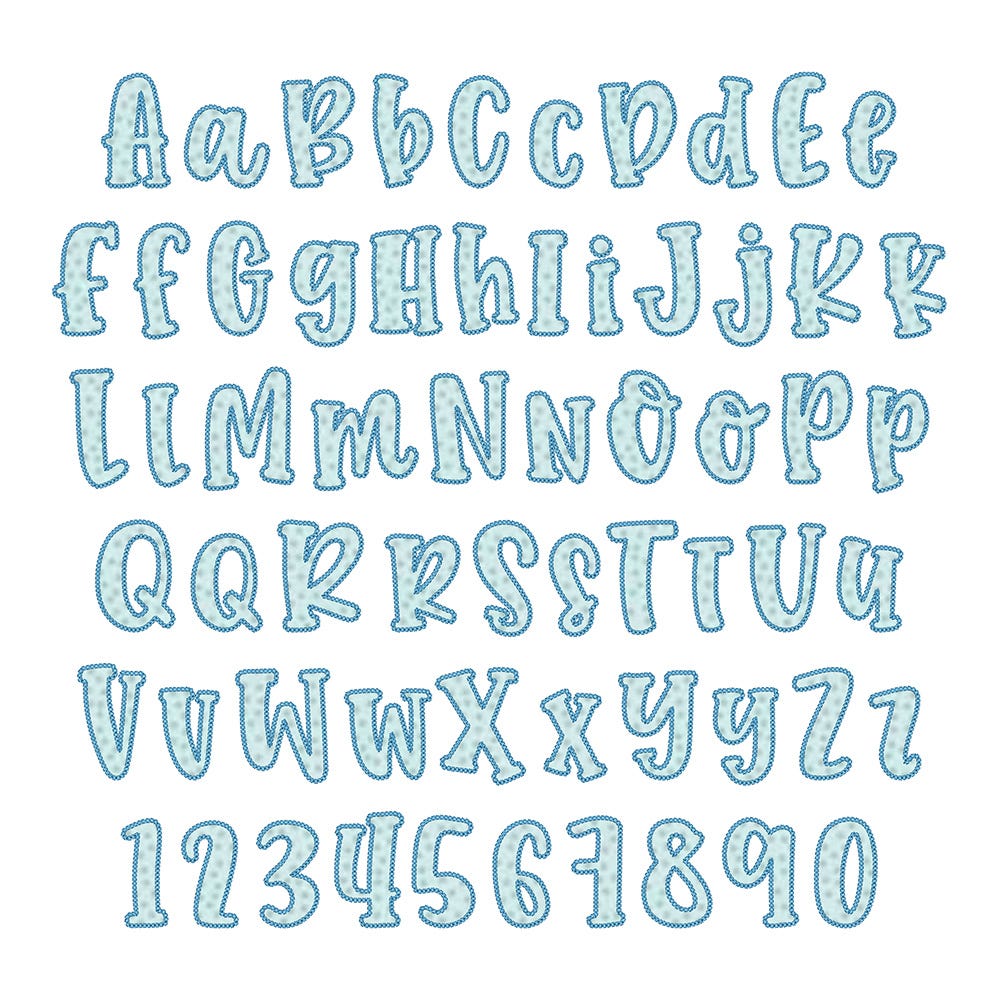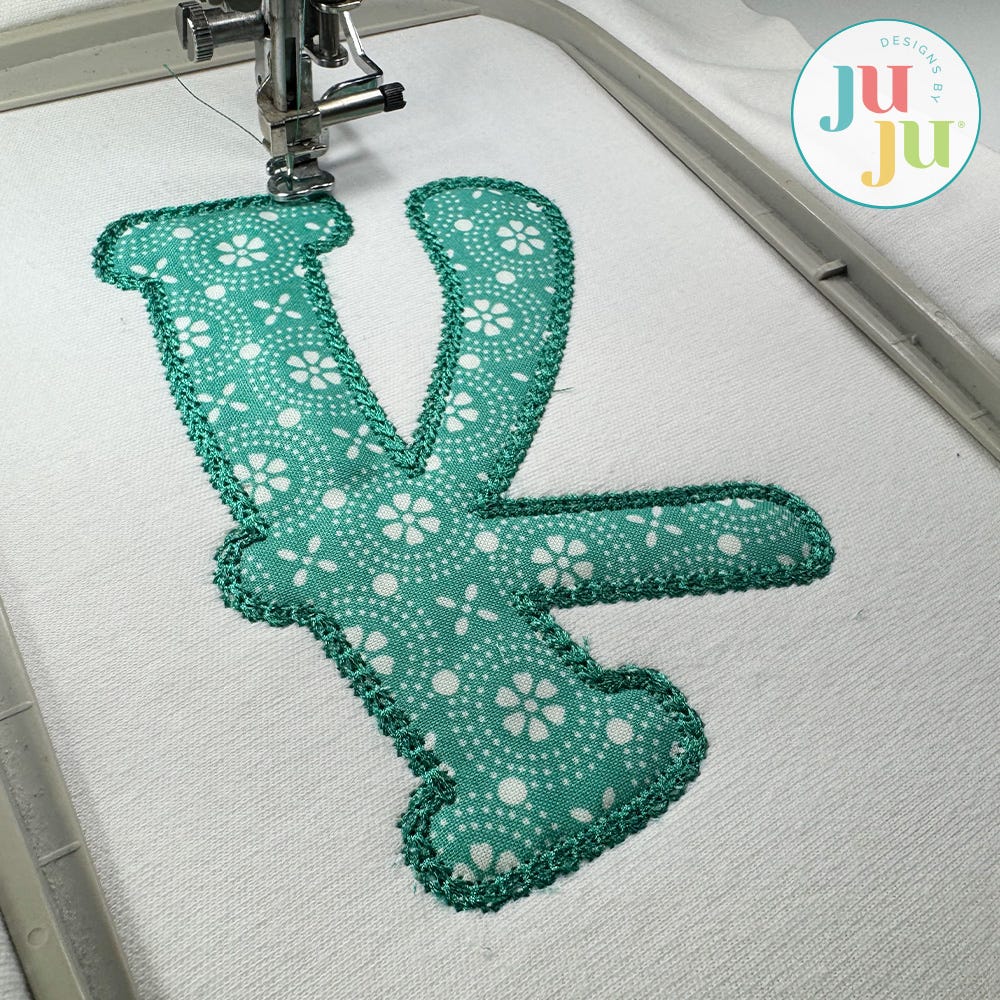
Farmhouse Lemonade Motif Stitch Applique Embroidery Font
You've loved all versions of our Farmhouse Lemonade Embroidery Fonts and now we are pleased to offer Farmhouse Lemonade Applique Alphabet! Included are uppercase letters, lowercase letters, and numbers, in 6 sizes (3-inch, 4-inch, 5-inch, 6-inch, 7-inch, and 8-inch). Each character is finished with a beautiful decorative chain stitch.